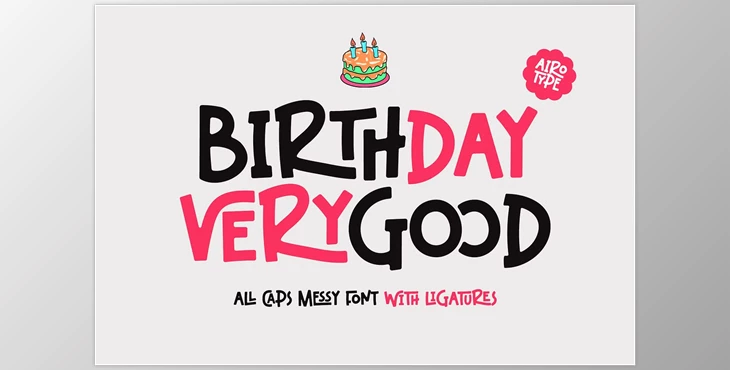
Birthday Verygood - All Caps Display Font:
Introducing Birthday Verygood, an all-caps display font exuding charming vibes. Packed with numerous ligatures, it effortlessly infuses a touch of fanciness, coolness, and edginess into your designs. Ensure ligature activation in your software for optimal presentation.
This versatile font is perfect for a myriad of projects, especially those with a cute and playful aesthetic, including logos, t-shirts, posters, branding, stickers, sublimation designs, quotes, and more.
Some great features of Birthday Verygood - All Caps Display Font:
- All Caps with ligatures
- Numerals and Punctuation
- Extensive Multilingual Support